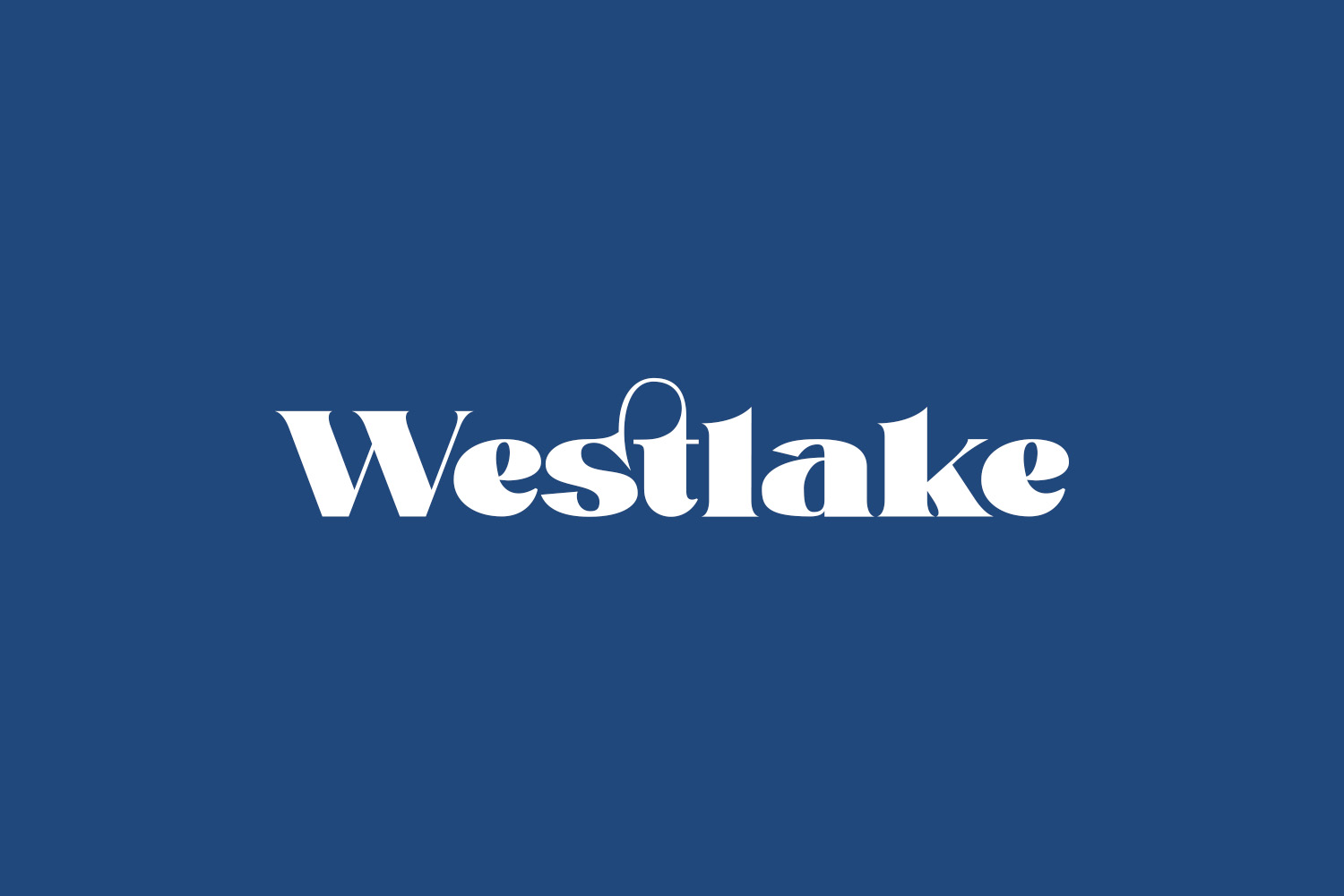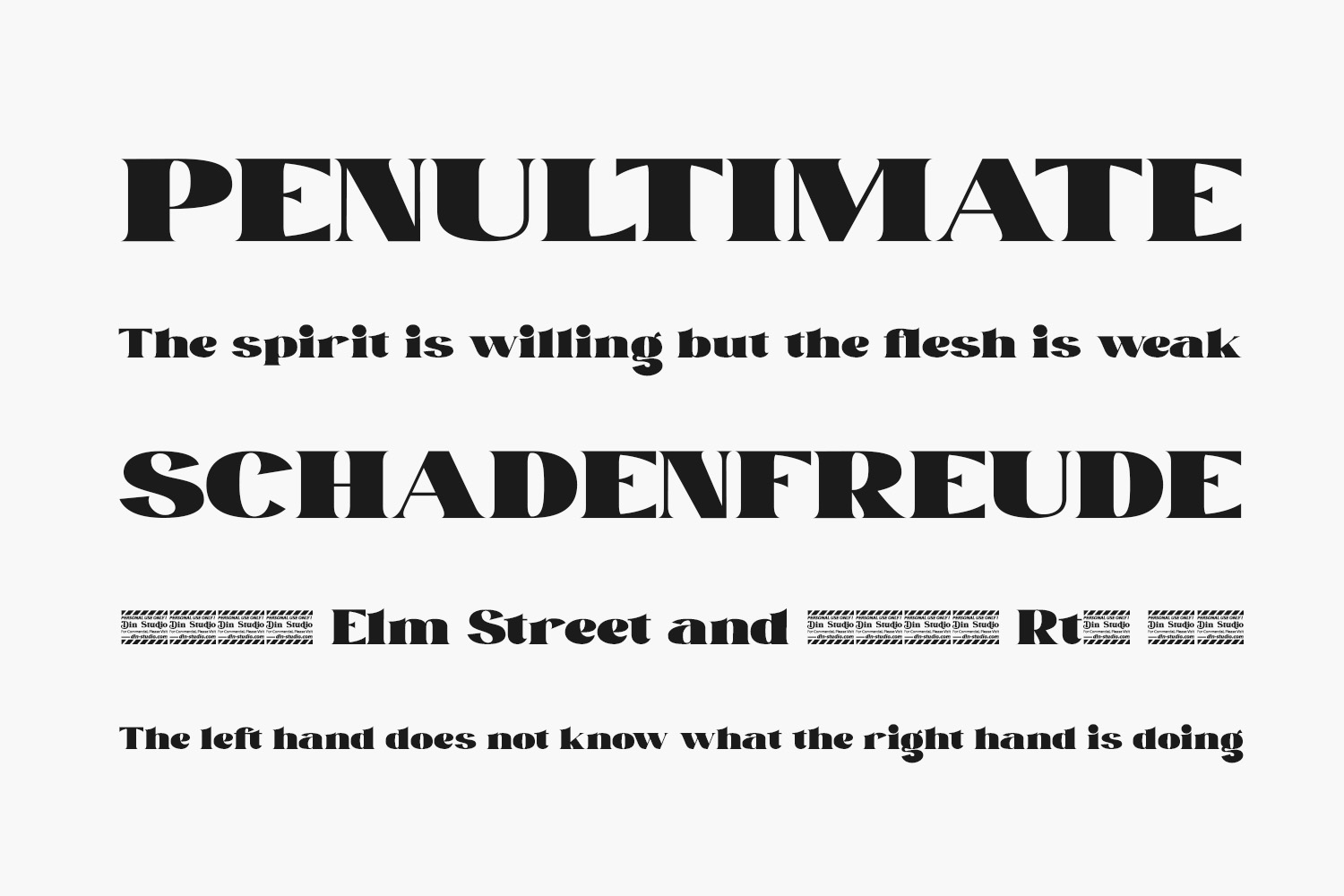
Westlake Free Font is a bold and stunning serif font. This font will look outstanding in any context, whether it’s being used on busy backgrounds or as a standalone headline. Westlake Free Font was designed by Din Studio is a demo and free for personal use only. Please purchase the full version for commercial use.